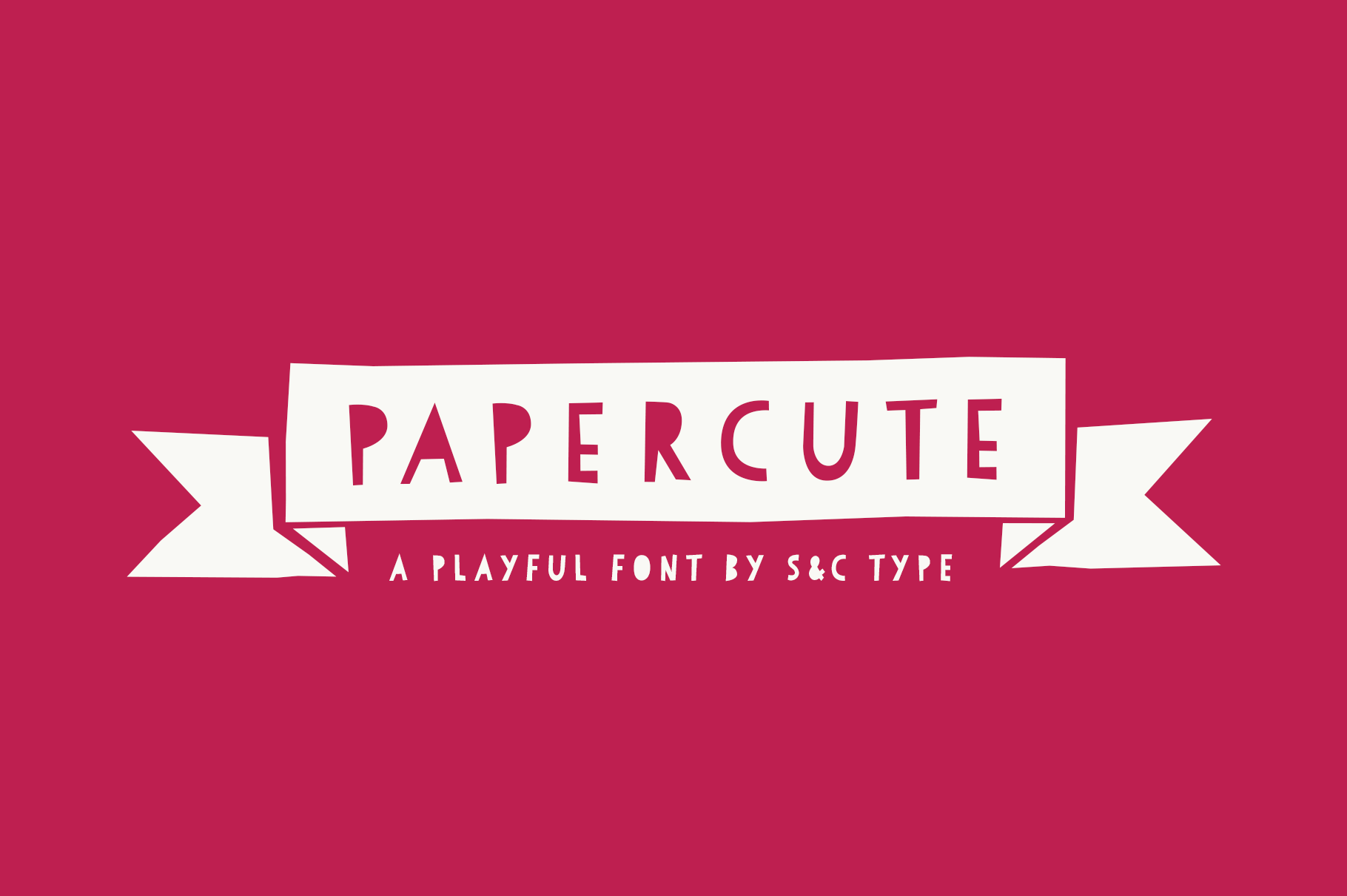
Papercute Font Collection
Papercute is a cute hand-drawn font designed by Fanny Coulez and Julien Saurin in Paris. Inspired by paper cutting, this font is easy to read, easy to play. Small caps are a little different than caps to create alternative glyphs. We also designed a set of cute paper ornaments, to enhance your designs.
Papercute Regular
Papercute Bold
Papercute Black
Papercute Ornaments